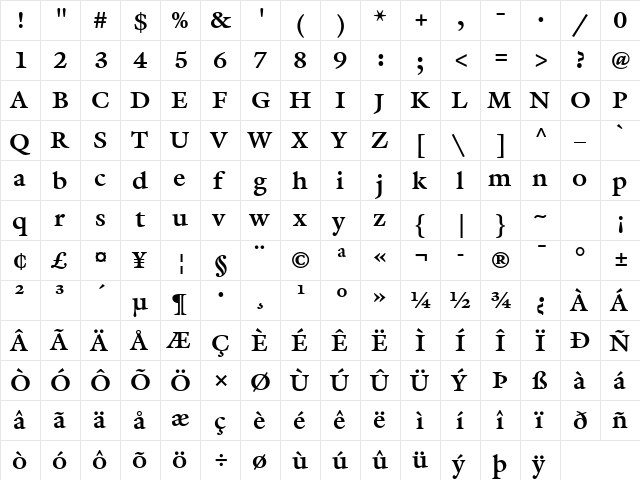
Galliard eText ITC Bold
| Foundry | International Typeface Corporation |
| Designer | Matthew Carter |
Design Context for Galliard eText ITC Typeface
Galliard eText ITC offers clean, dependable letterforms without strong stylistic allegiance, making it a practical choice for designers who need flexibility. The heavy weight commands attention and anchors typographic hierarchies.
Pro Tip: Use Galliard eText ITC in both headline and body roles to test its range before committing to a single application.